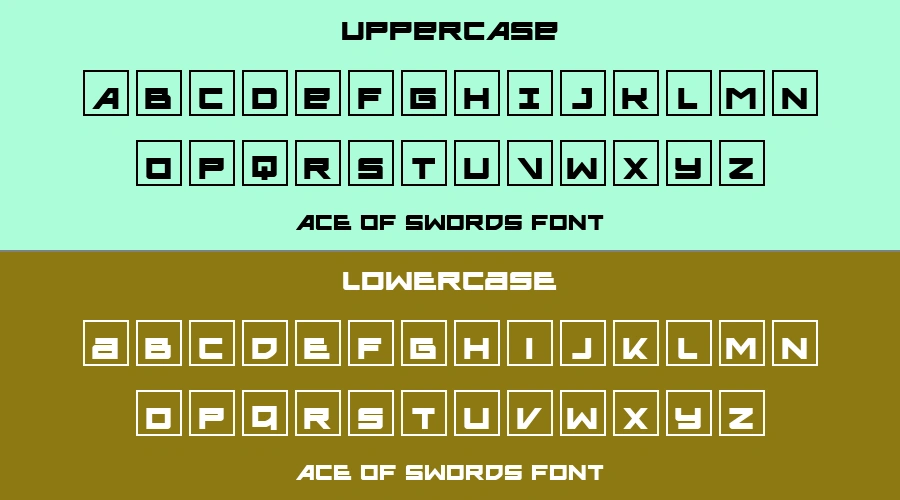
About Ace Of Swords Font
Designed with precision, Ace Of Swords Font merges dynamic forms with professional finish in every character. This versatility makes it particularly effective for film titles, where longevity and market confidence directly impact communication quality. Each letterform demonstrates meticulous craftsmanship.
Technical excellence shines through elements like engineered curves and lining figures, enhancing typographic versatility. In hero imagery settings, Ace Of Swords Font proves its worth through superior numerical alignment. The thoughtful execution of terminal style and generational relevance ensures professional results.
Ace Of Swords Font |